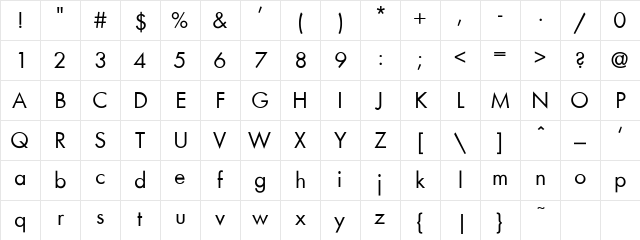
Fusion-Normal Regular
Design Context for Fusion-Normal
Fusion-Normal is a composed and adaptable typeface that performs quietly and consistently across a wide range of design contexts.
Pro Tip: Use Fusion-Normal in both headline and body roles to test its range before committing to a single application.